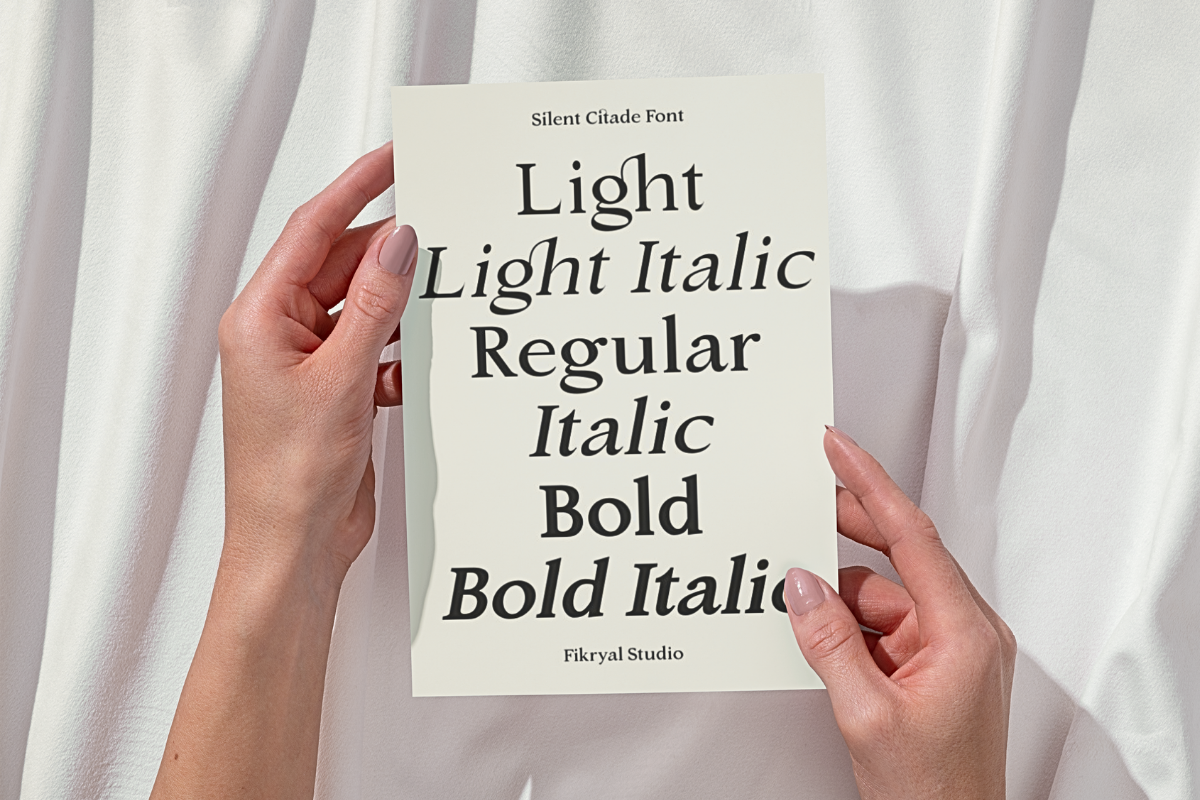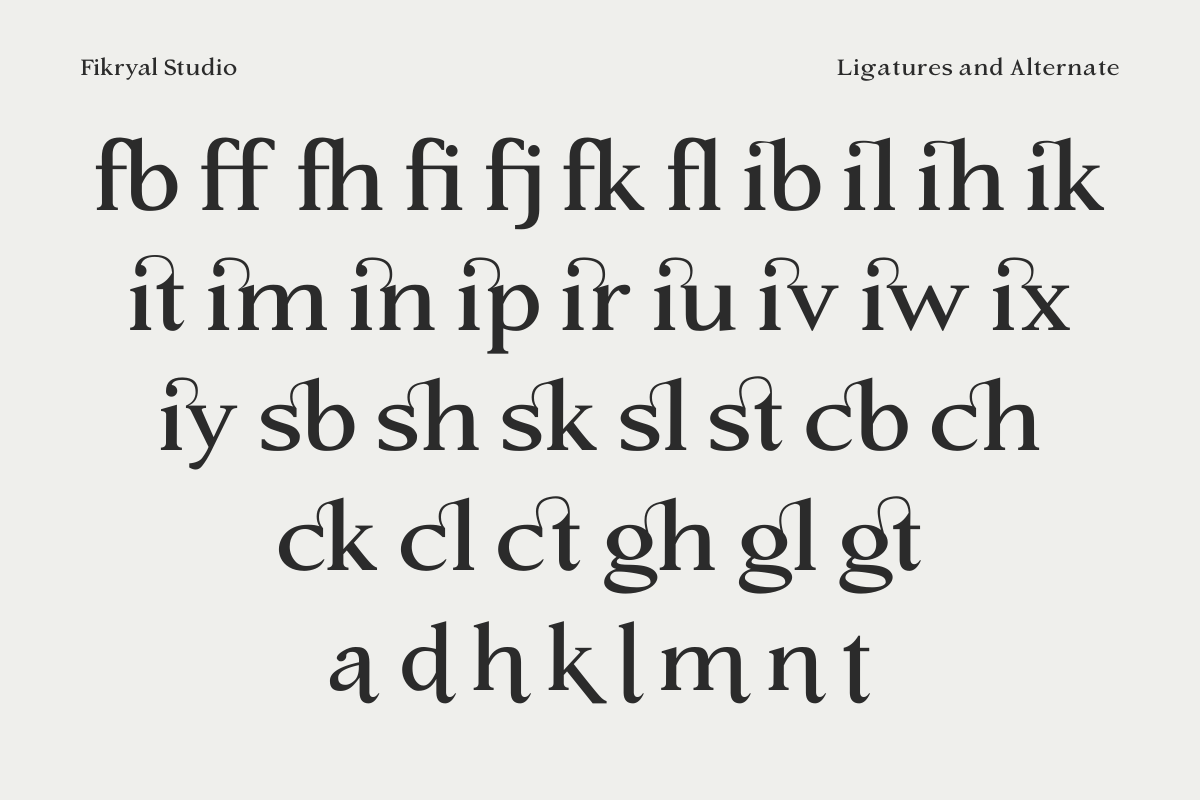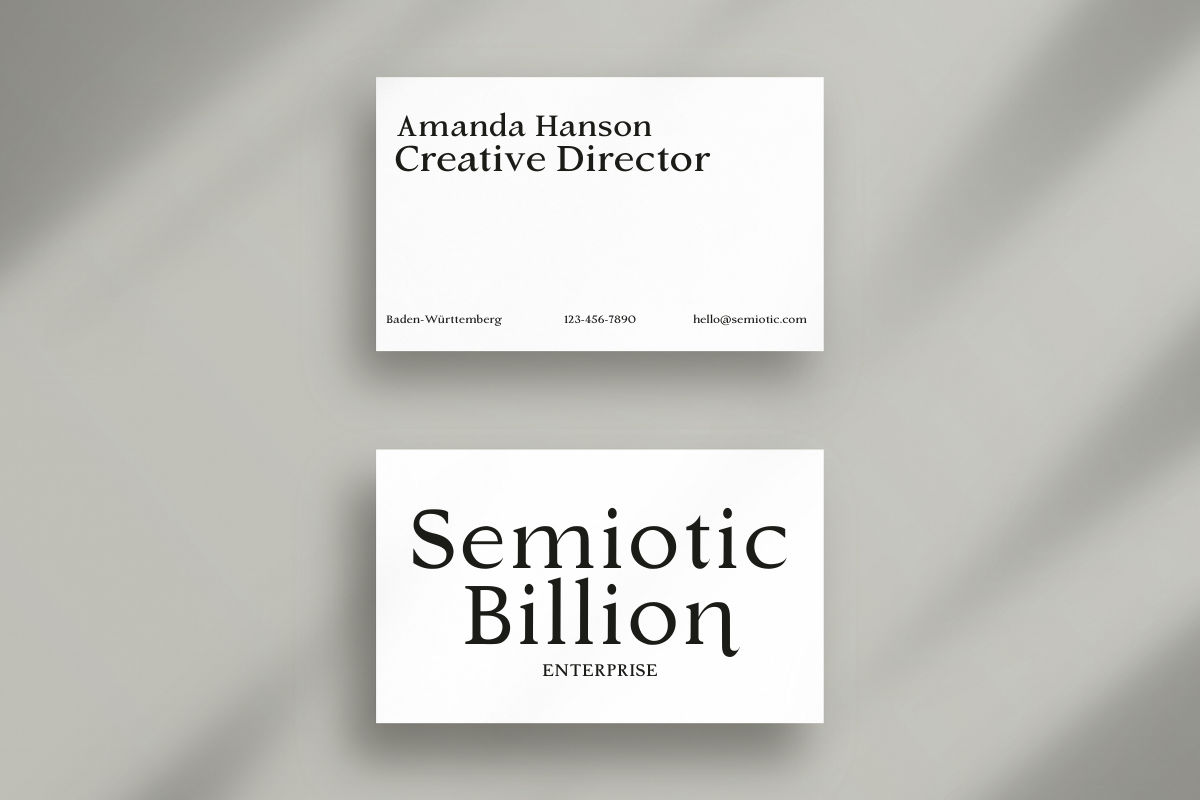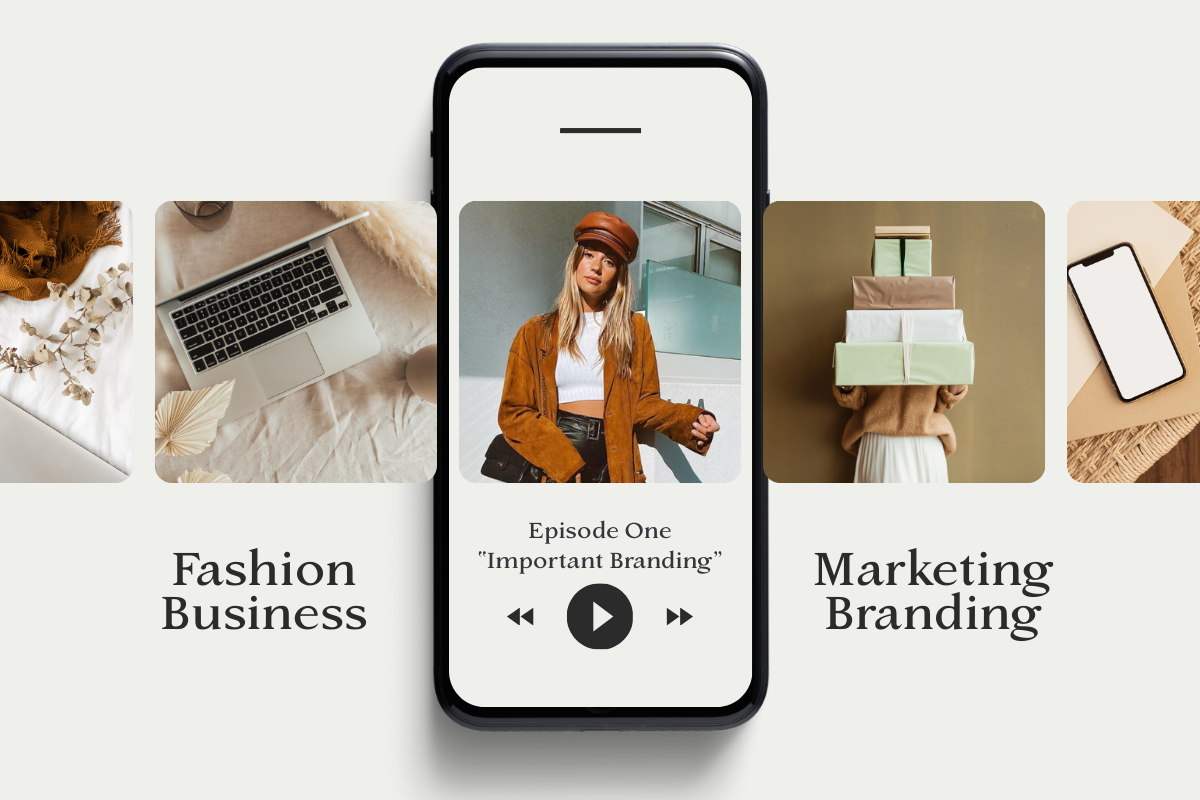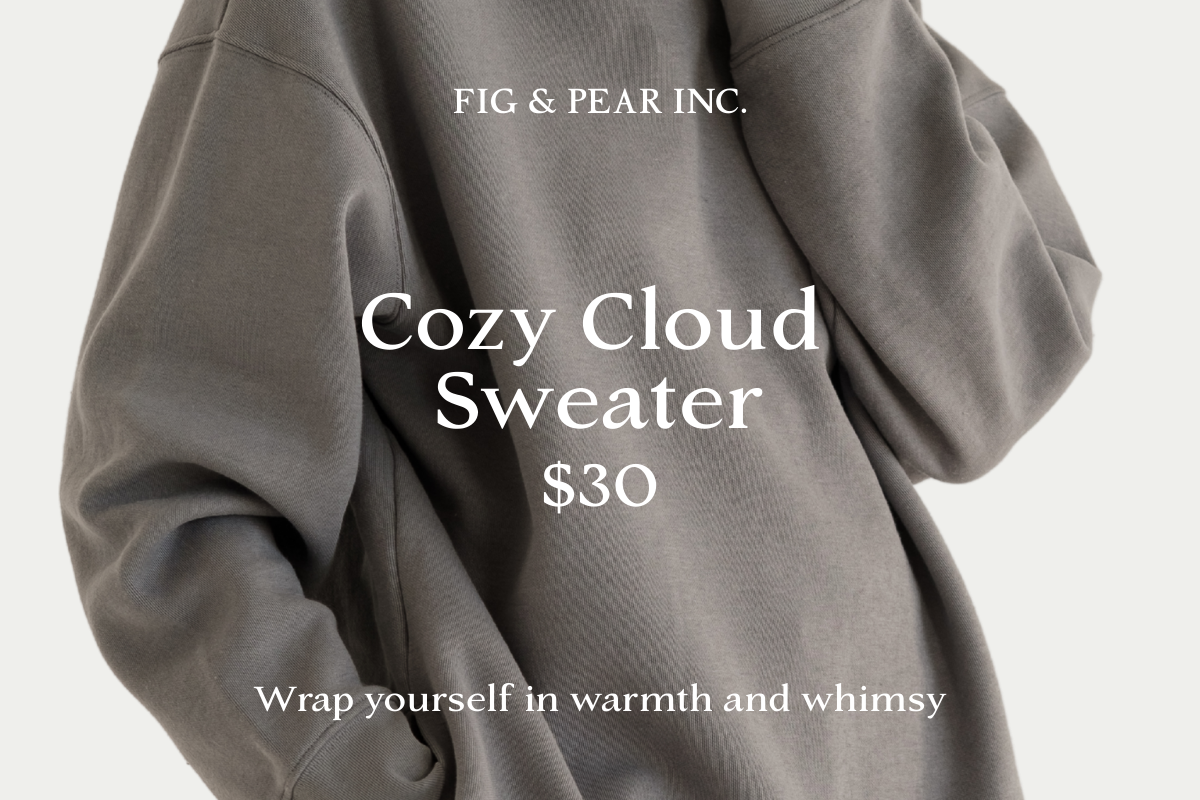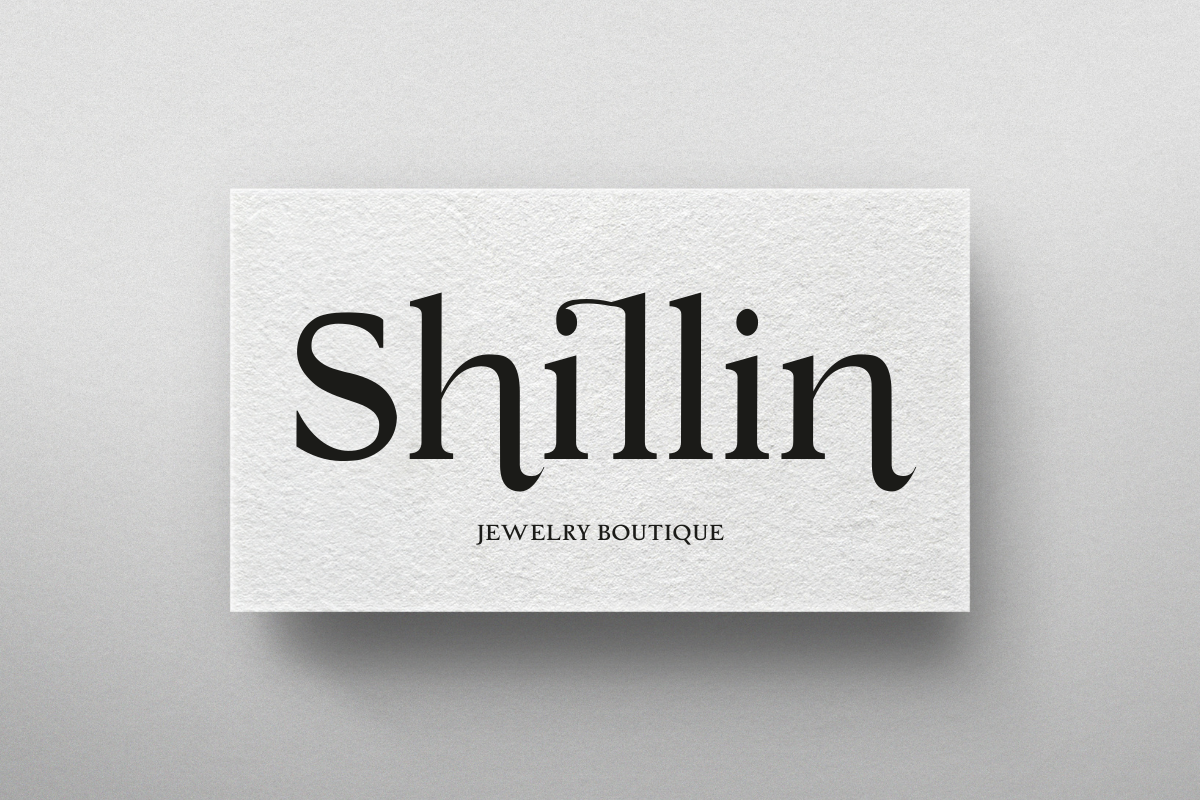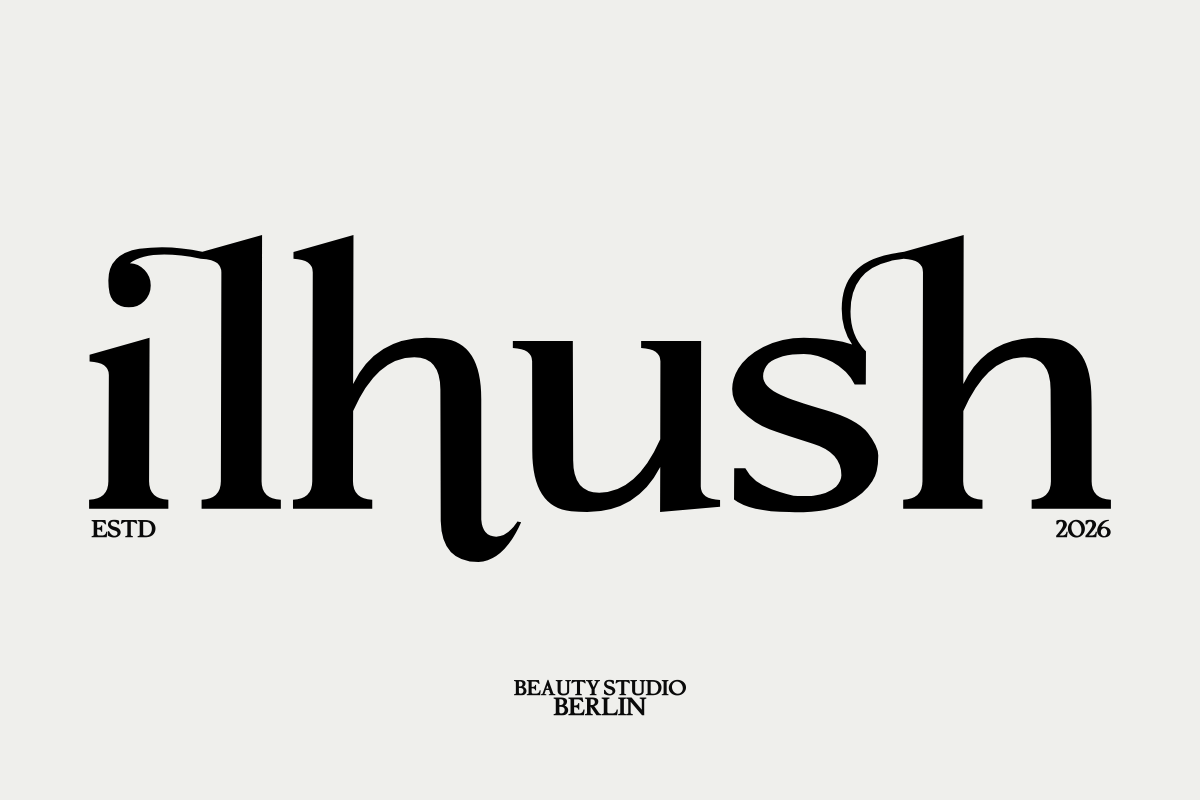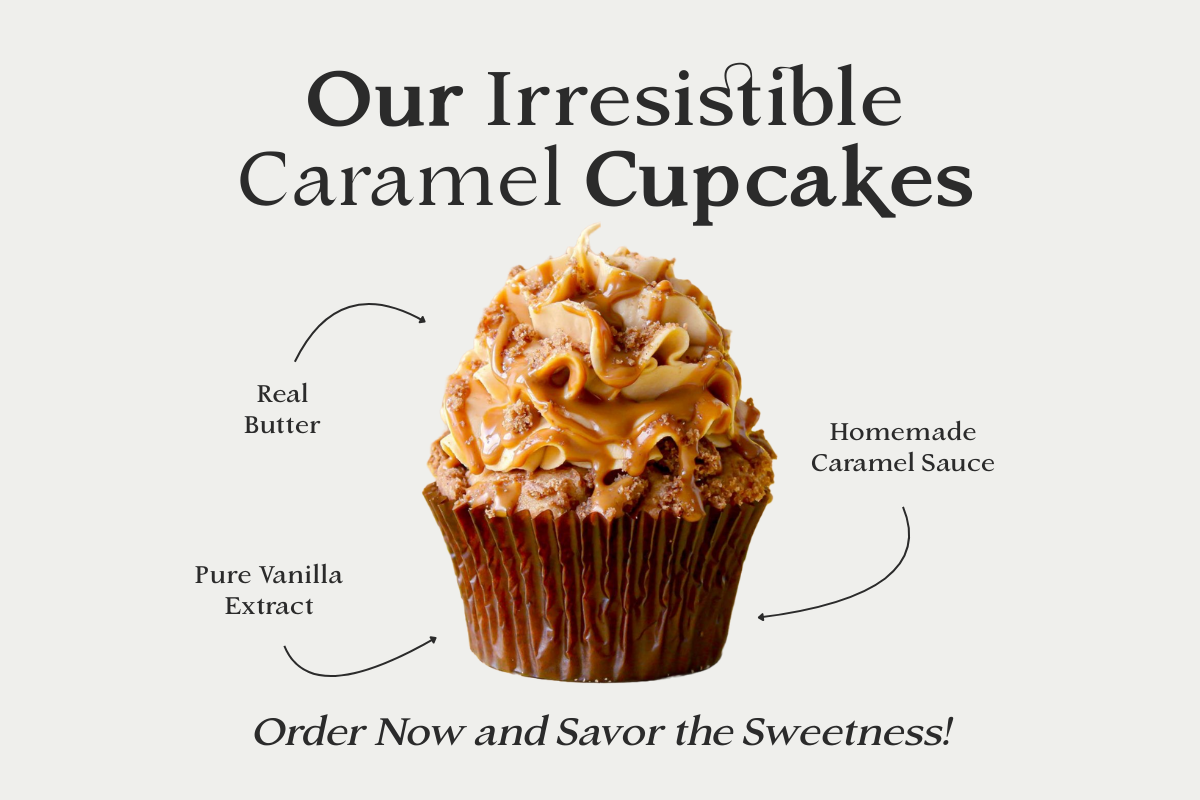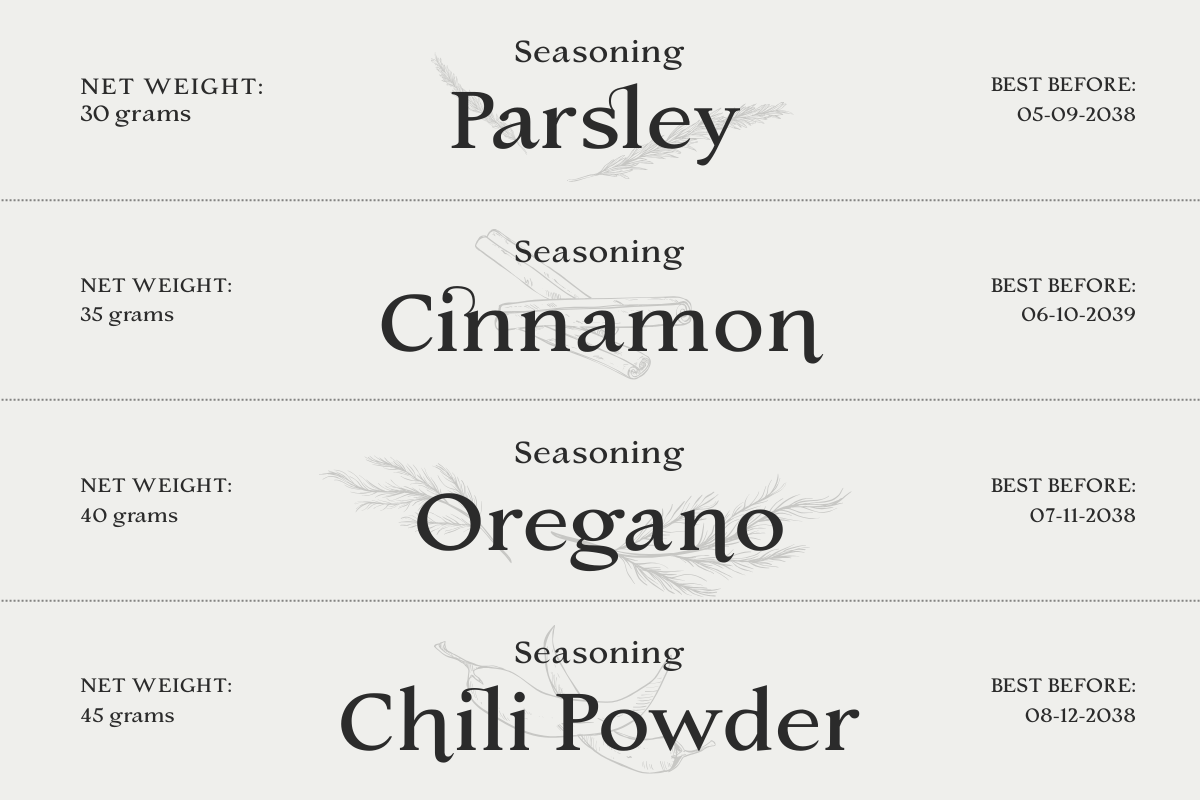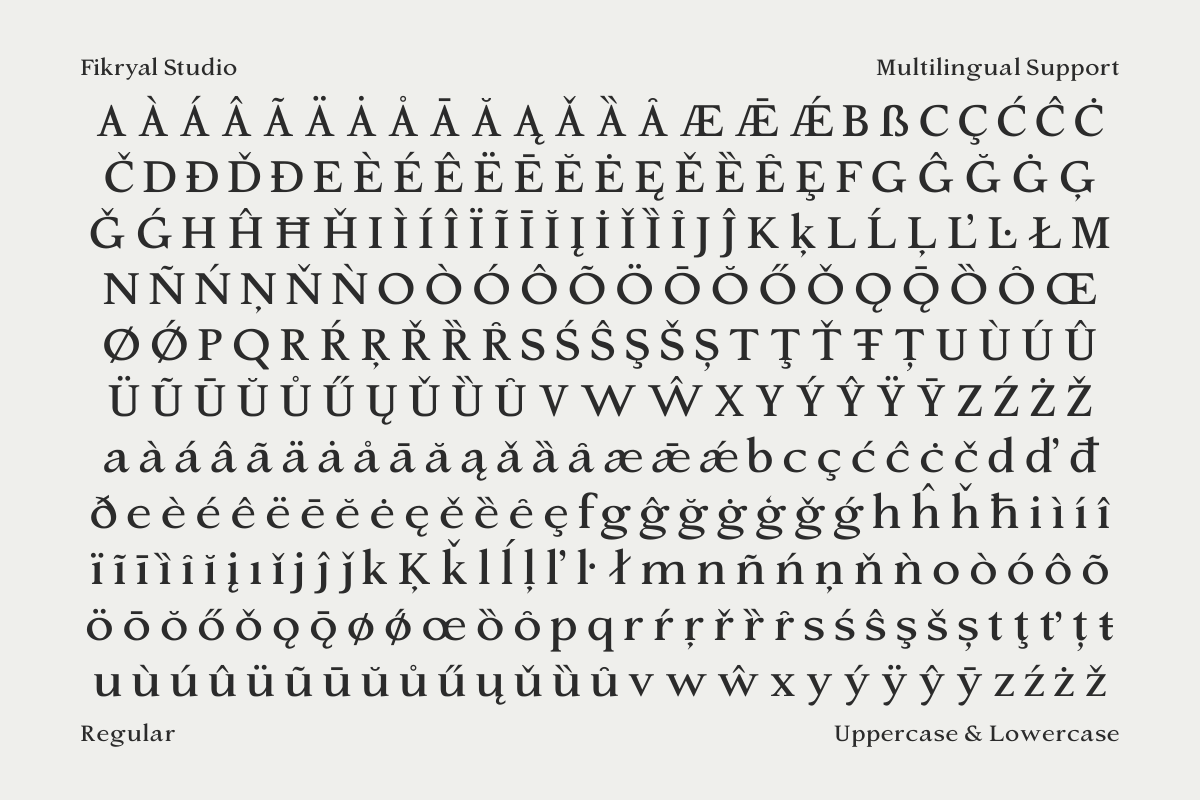
Silent Citadel – Editorial Serif
Silent Citadel is a refined editorial display serif designed to evoke authority, elegance, and timeless sophistication. Inspired by the quiet strength of classical architecture and the grandeur of historic fortresses, this typeface blends sharp serifs, graceful curves, and confident proportions into a commanding yet polished visual voice.
Crafted for high-impact typography, Silent Citadel is perfect for luxury branding, editorial headlines, fashion campaigns, premium packaging, and refined logo design. Its distinctive character structure balances dramatic contrast with controlled detailing, making every word feel intentional and elevated.
This font family includes six styles:
Light
Light Italic
Italic
Bold
Bold Italic
Each weight is carefully engineered to maintain visual harmony while offering flexibility for layered typography systems — from delicate, airy layouts to bold and assertive compositions.
Silent Citadel also features thoughtfully designed ligatures and lowercase alternates, allowing designers to create expressive, bespoke typographic moments. The alternate forms add personality and refinement, making it ideal for branding projects that demand uniqueness and character.
Whether used in magazine headlines, luxury logos, cinematic titles, or premium product packaging, Silent Citadel delivers a sophisticated presence with enduring appeal.
6 Font Styles (Light to Bold + Italics)
Elegant Editorial Display Serif
Beautiful Ligatures
Stylish Lowercase Alternates
High-contrast & Refined Serif Details
Perfect for Luxury & Premium Branding
Luxury Branding
Fashion & Beauty Campaigns
Editorial & Magazine Headlines
High-End Packaging
Wedding & Event Design
Social Media Typography
Premium Website Headers